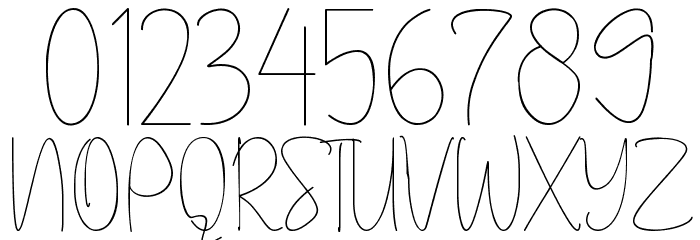
Yagrithost Zkhai Font
This font features an elegant and whimsical handwritten style, characterized by its thin, flowing lines and playful curves. The uppercase letters are tall and slender, with a slight slant that adds a dynamic feel. Lowercase letters maintain a consistent height, contributing to a harmonious appearance. The numerals are distinct and easy to read, while the special characters blend seamlessly with the overall design. This font's delicate strokes and airy spacing give it a light and breezy aesthetic, perfect for adding a touch of sophistication and creativity to any project.
A whimsical handwritten font with thin, flowing lines and playful curves.
- Proposed Projects: Ideal for wedding invitations, greeting cards, personal branding, and creative projects requiring a touch of elegance.
- Category: Handwritten
- Weight: Light
- Character Spacing: Wide
- Use Case: Logos, Invitations, Greeting Cards